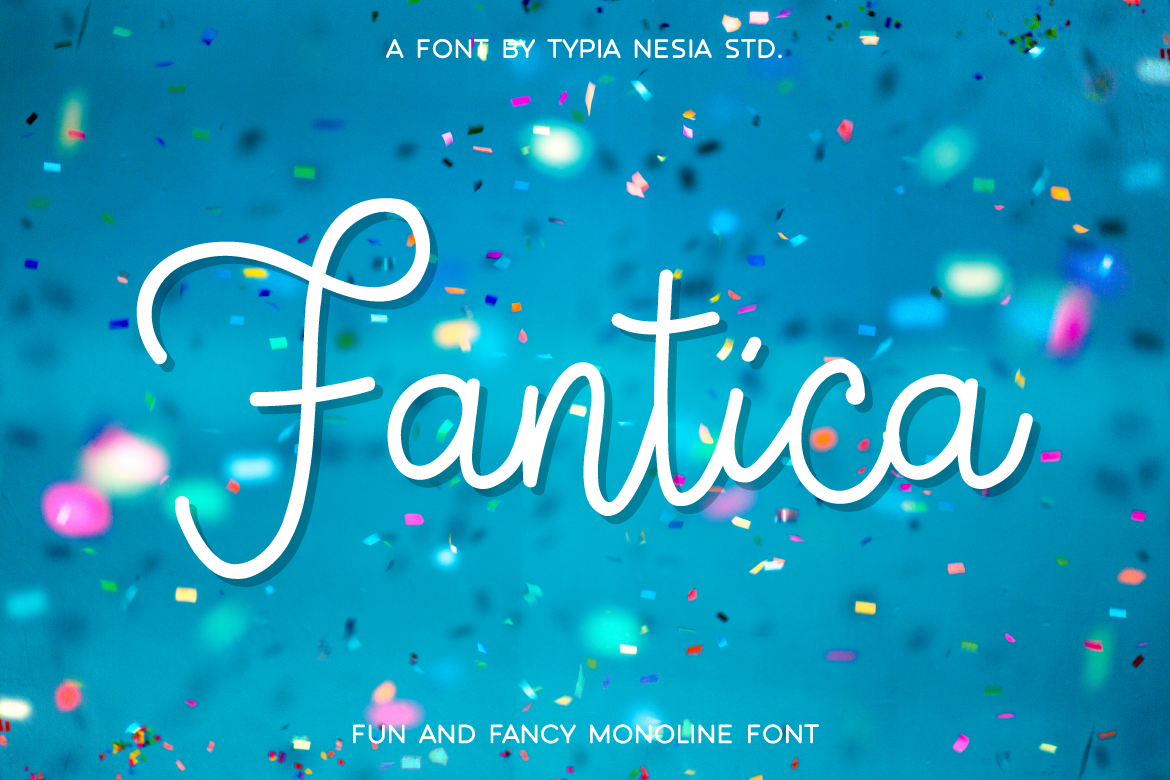
Fantica Script
Fantica Script Font
Fantica is a fun and fancy monoline font. It suitable for company logo, personal brand, t-shirt, quote poster, packaging, book cover, display design, cards, and any monoline calligraphy needs and more.